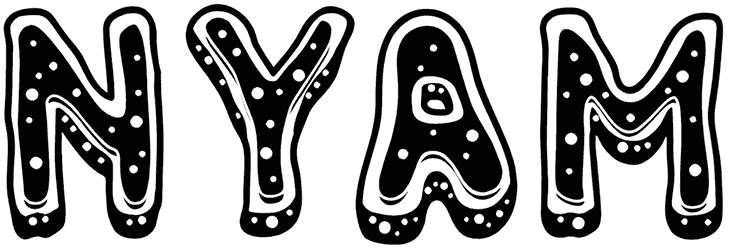
Snowy Dahlia Font
Snowy Dahlia is the ideal Christmas font to use if you want to convey a sense of winter to your audience, despite the fact that it lacks numerals.